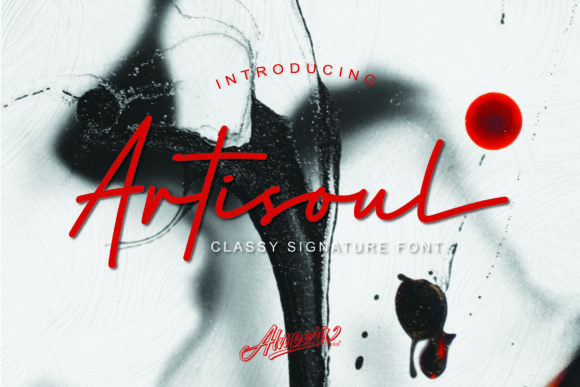
The Artisoul Font: Elevating Your Designs with Elegance
I’ll never forget the moment I stumbled upon the Artisoul font. I was working on a project for a client who wanted a sophisticated, handcrafted look for their branding. I had spent hours scouring the internet for the perfect font, but nothing seemed quite right. That was until I discovered Artisoul – a beautiful, classy handwritten font that instantly elevated my design game. In this article, I’ll share my experience with Artisoul, its features, and how to make the most of it in your designs.
An Honest Review of Artisoul
• ✨ Organic and smooth feel: Artisoul has a unique, handcrafted quality that gives it a warm and inviting feel.
• ✅ Highly versatile: This font can be used for a wide range of projects, from branding and packaging to invitations and social media graphics.
• 💫 Beautifully crafted: The attention to detail in Artisoul is impressive, with elegant letterforms and thoughtful kerning.
While Artisoul is an exceptional font, there are a few things to keep in mind:
• 🤔 Legibility at small sizes: Like many script fonts, Artisoul can be challenging to read at very small sizes. It’s best used at larger sizes, such as headings or titles.
• ⚠️ Glyph support: While Artisoul comes with a range of glyphs and OpenType features, some users may find that it lacks certain characters or alternates.
The Backstory of Artisoul
While the origins of Artisoul are shrouded in mystery, it’s clear that the designer poured their heart and soul into crafting this exquisite font. Imagine a designer, fueled by passion and creativity, carefully crafting each letterform to perfection. The result is a font that’s both elegant and approachable – perfect for a wide range of design projects.
Q: What is the best use for Artisoul?
A: Artisoul is ideal for projects that require a touch of elegance and sophistication, such as branding, packaging, and invitations.
Q: Is Artisoul a difficult font to read?
A: Like many script fonts, Artisoul can be challenging to read at very small sizes. It’s best used at larger sizes, such as headings or titles.